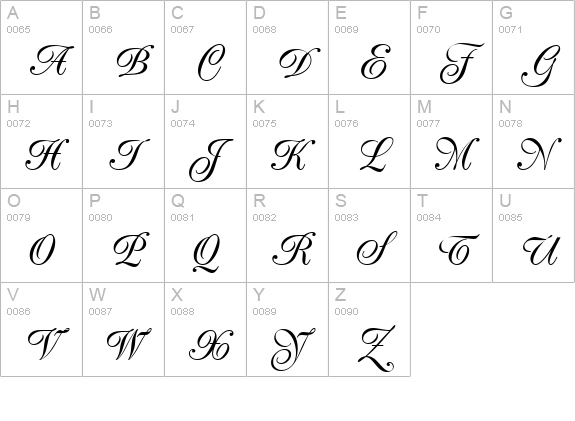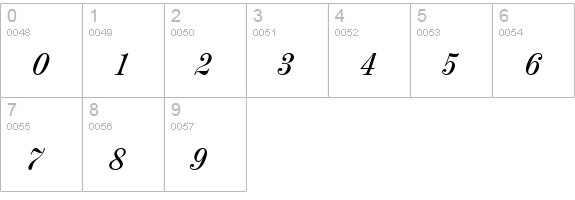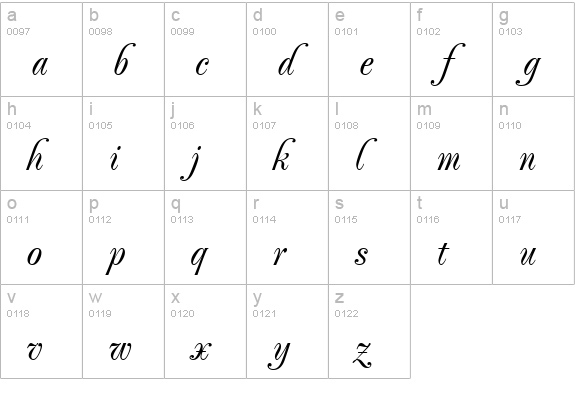
PopplExquisit Font Details
PopplExquisit font is a modern and elegant typeface that exudes sophistication and style. Its sleek lines and unique letterforms make it perfect for a wide range of design projects, from branding to editorial design. The font strikes the perfect balance between traditional elegance and contemporary flair, making it a versatile choice for both print and digital applications. What sets PopplExquisit font apart is not only its aesthetic appeal but also its accessibility. Unlike many premium fonts, PopplExquisit is freely available to download at FontsMarket.com. This means that designers and creatives of all levels can enjoy the benefits of using this exquisite typeface in their projects without any cost barriers. Whether you're looking to elevate your brand identity, create stunning editorial layouts, or simply add a touch of sophistication to your designs, PopplExquisit font is a fantastic choice. Download it today from FontsMarket.com and see for yourself how this free font can take your projects to the next level.